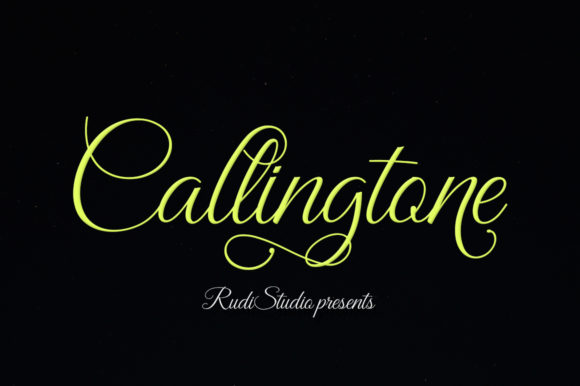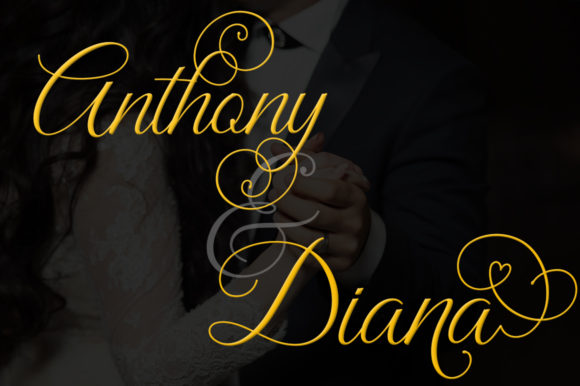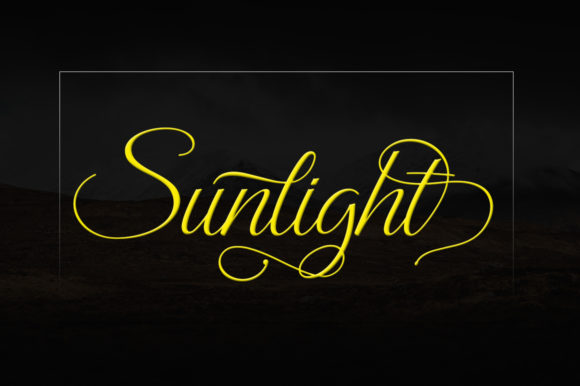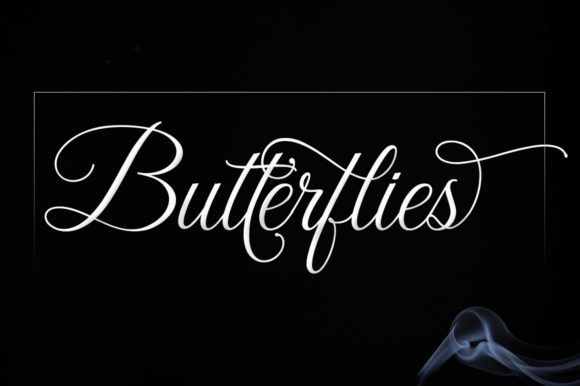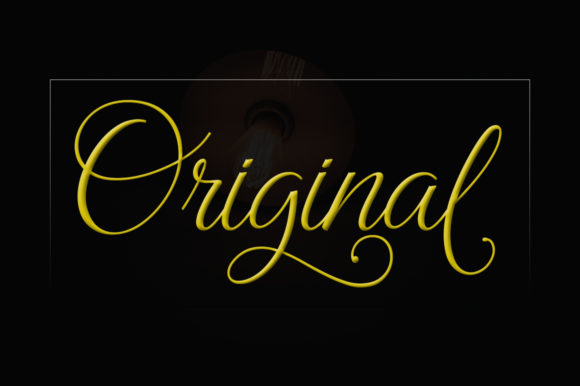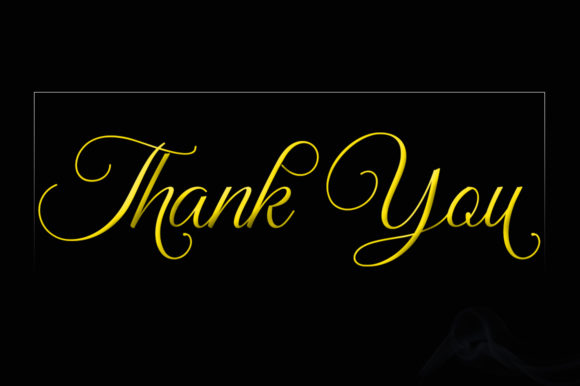
Introduction to Lattera Font
Lattera is a modern script font made with a delicate touch.
Fall in love with its swirly flourishes .
Key Features of Lattera Font